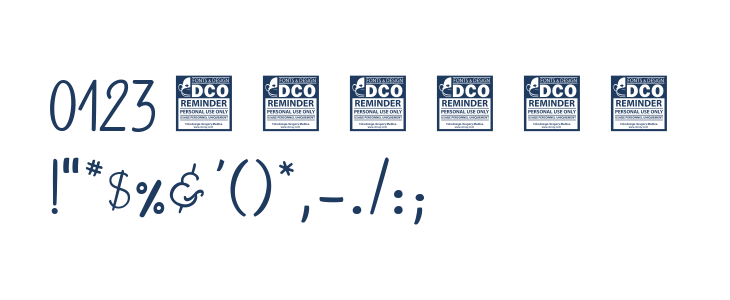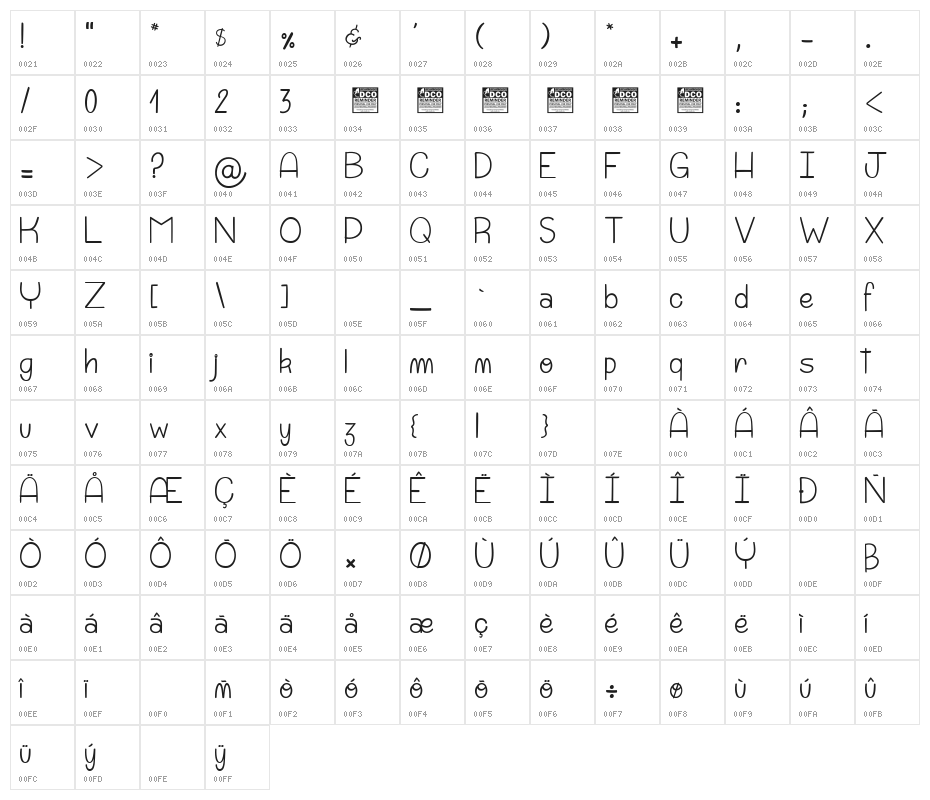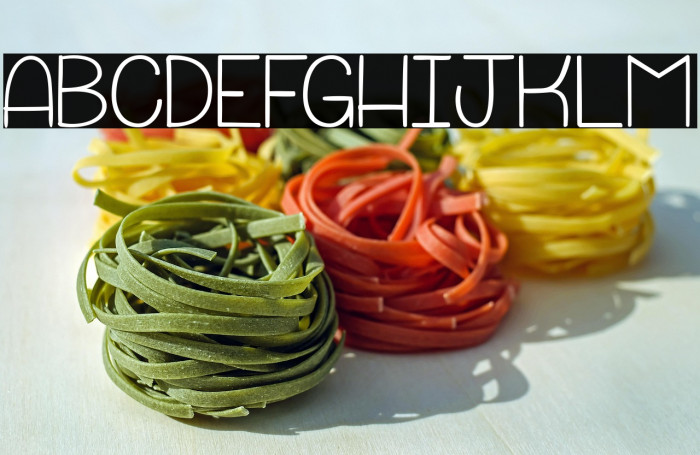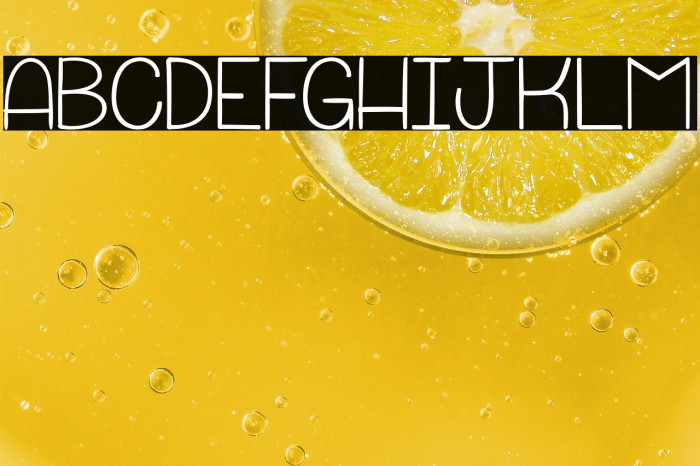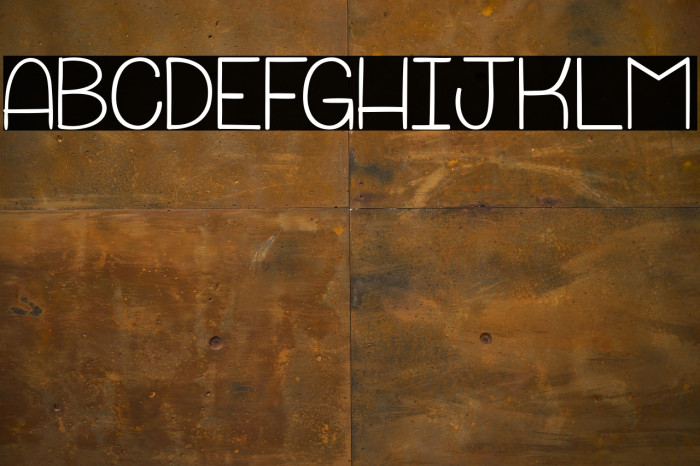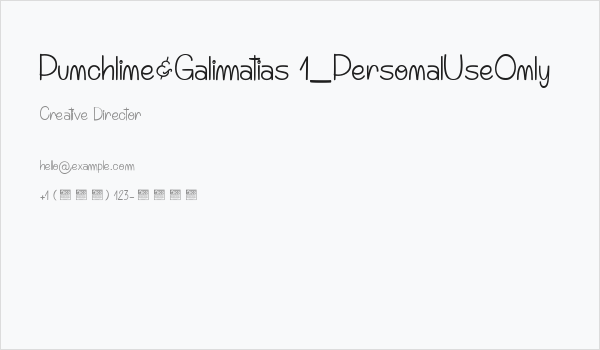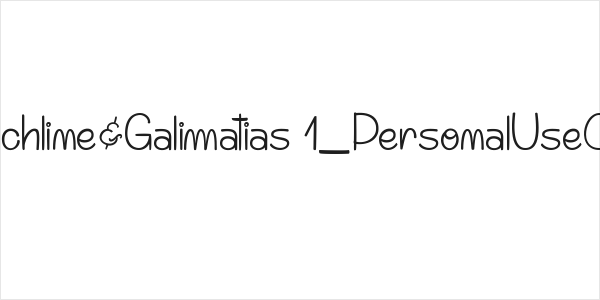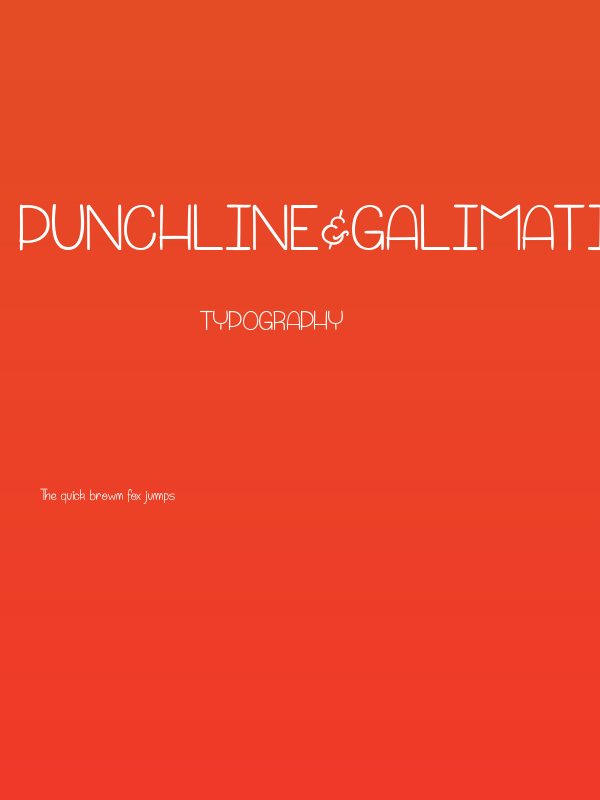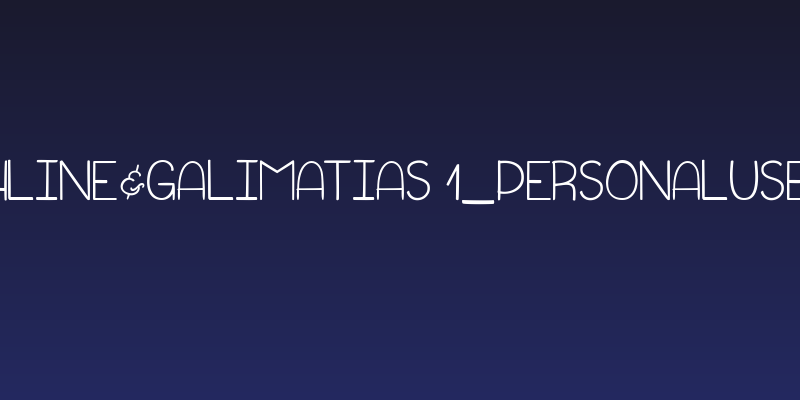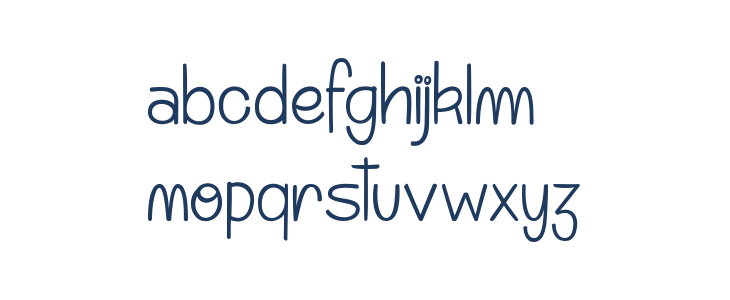
Punchline&Galimatias 1_PersonalUseOnly Font
Punchline&Galimatias 1_PersonalUseOnly Description
This font features a playful and whimsical style with a handwritten appearance. The uppercase letters are tall and slender, while the lowercase letters have a more rounded and casual look. The characters are slightly irregular, adding to the informal and friendly feel. The numbers are consistent with the overall style, maintaining the playful aesthetic. Special characters are creatively designed, enhancing the font's unique personality. This font is ideal for projects that require a fun and approachable tone.
| Proposed Projects | Ideal for children's books, greeting cards, playful branding, and casual invitations. |